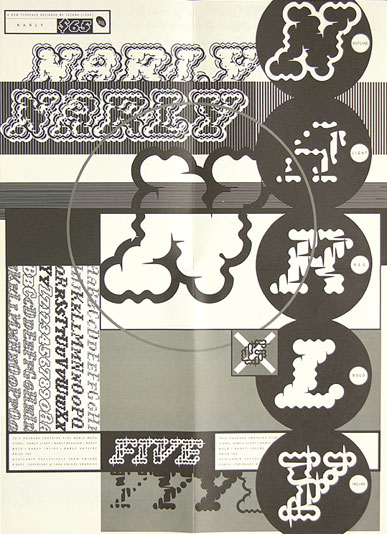
By Zuzana Licko
Narly embraces the relative sophistication of today's computer technology. My early typeface designs, such as Emperor and Modula, are reductivist, largely due to the crudeness of the early Macintosh technology, with which they were created. Nine years later, with a much more sophisticated Mac, I am able to create much more intricate designs. The underlying structure of Narly is built from overlapping circular dots. These are then fused and outlined in various ways to form the five mutations.
The development of Narly from a bitmap skeleton.